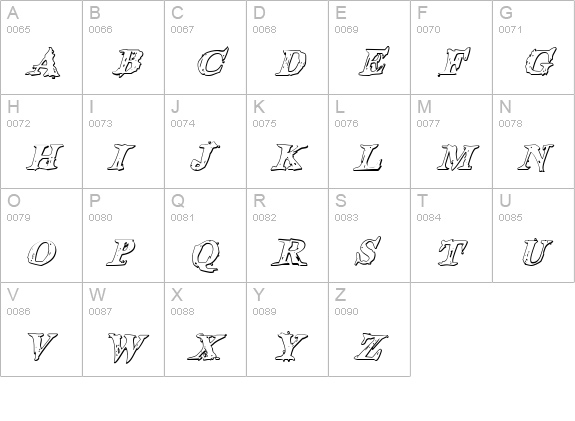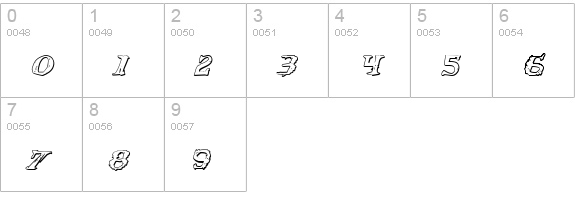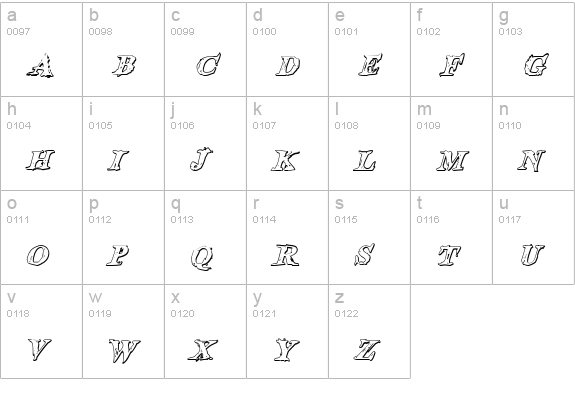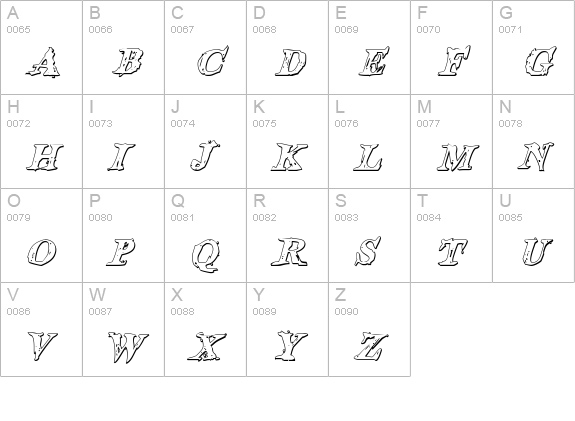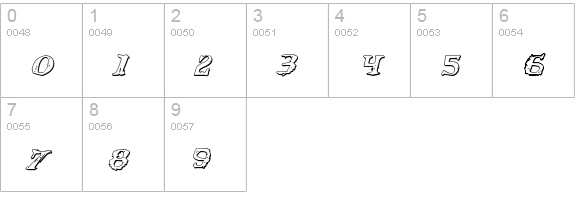
Blood Crow Shadow Italic is a distinctive, italic variant in the Blood typeface family \xE2\x80\x94 well suited to design and typography projects.
Introducing the captivating and mysterious Blood Crow Shadow Italic font, designed to make a bold statement in your creative projects. With its unique and edgy style, this font exudes an aura of darkness and intrigue, perfect for adding a touch of drama to your designs. The sleek and elegant italicized letterforms of Blood Crow Shadow create a striking visual impact, drawing the eye and commanding attention. Whether used for branding, headlines, posters, or other graphic design projects, this font is sure to leave a lasting impression. And the best part? Blood Crow Shadow Italic font is completely free to download at FontsMarket.com, making it easily accessible for all your design needs. Don't miss out on this opportunity to add a touch of darkness and sophistication to your projects with this stunning font.